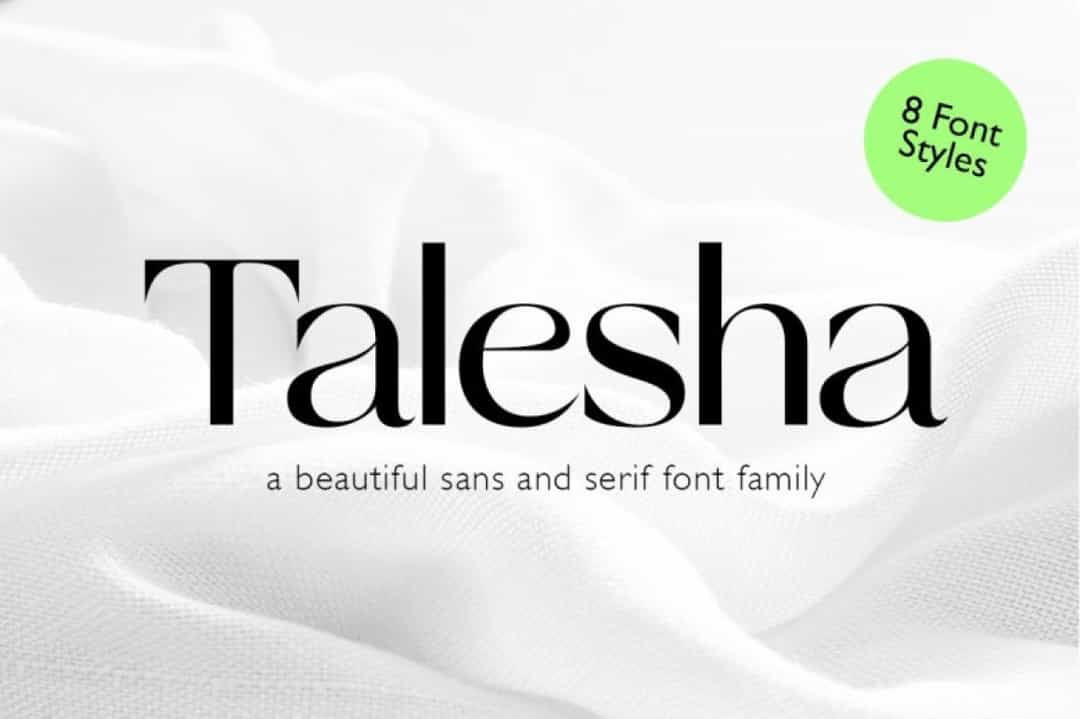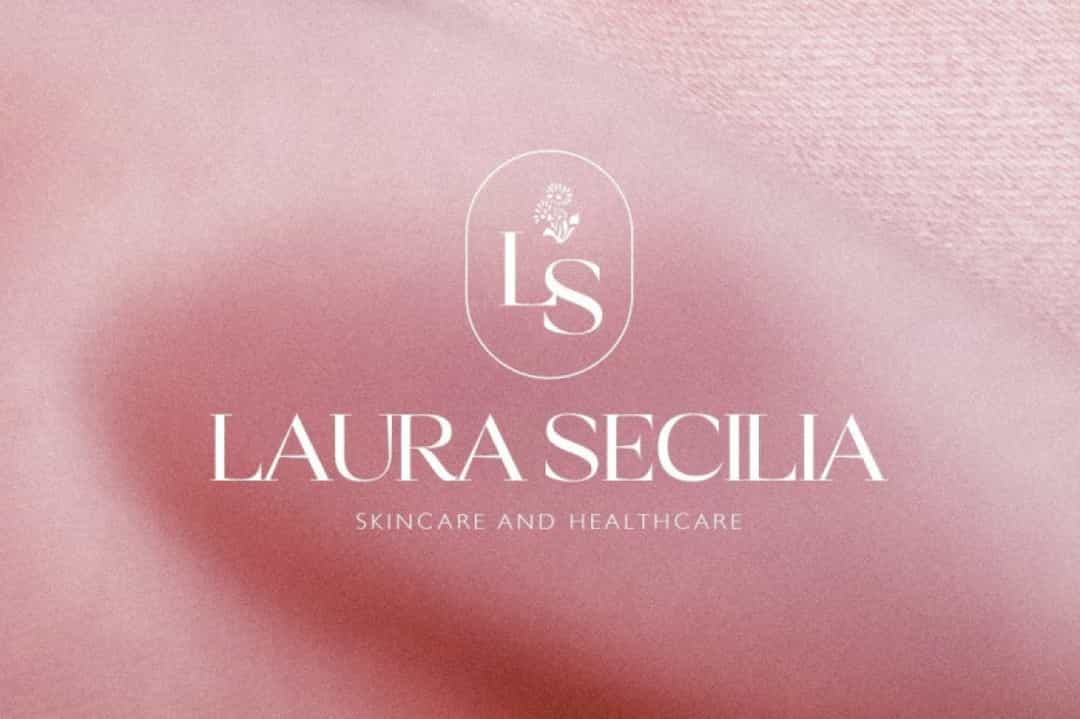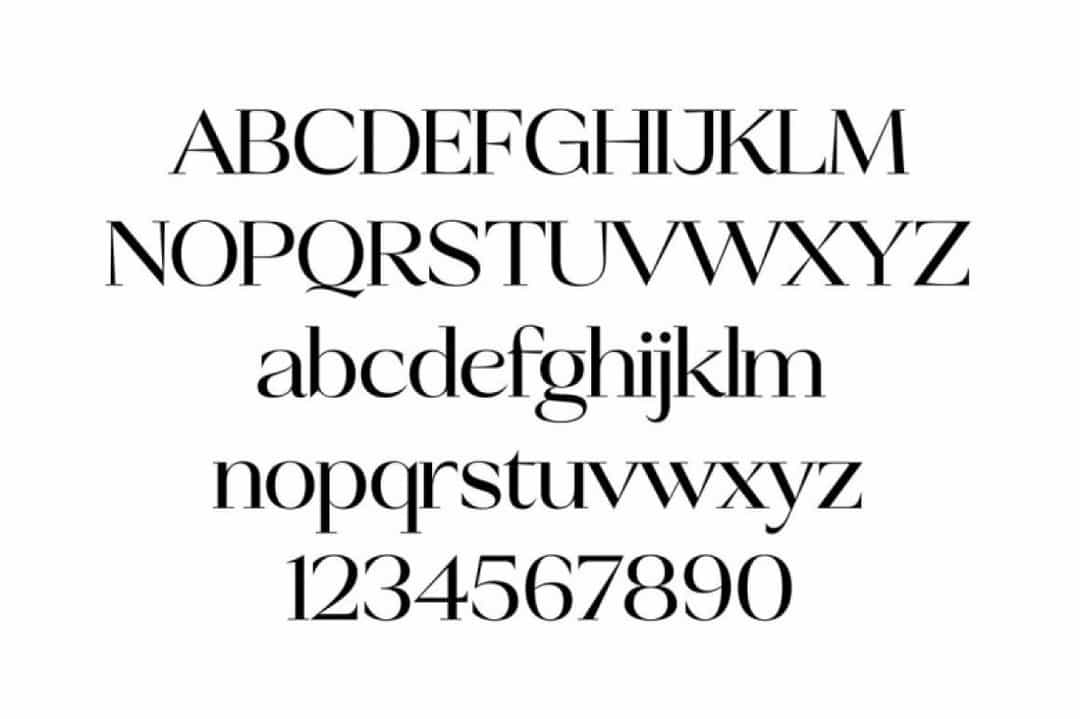
Talesha is a high-contrast typeface inspired by both traditional and modern fonts, comprising of 8 fonts from sans serif to serif font normal condensed and slant font normal condensed and slant, each of them featuring 239 glyphs.